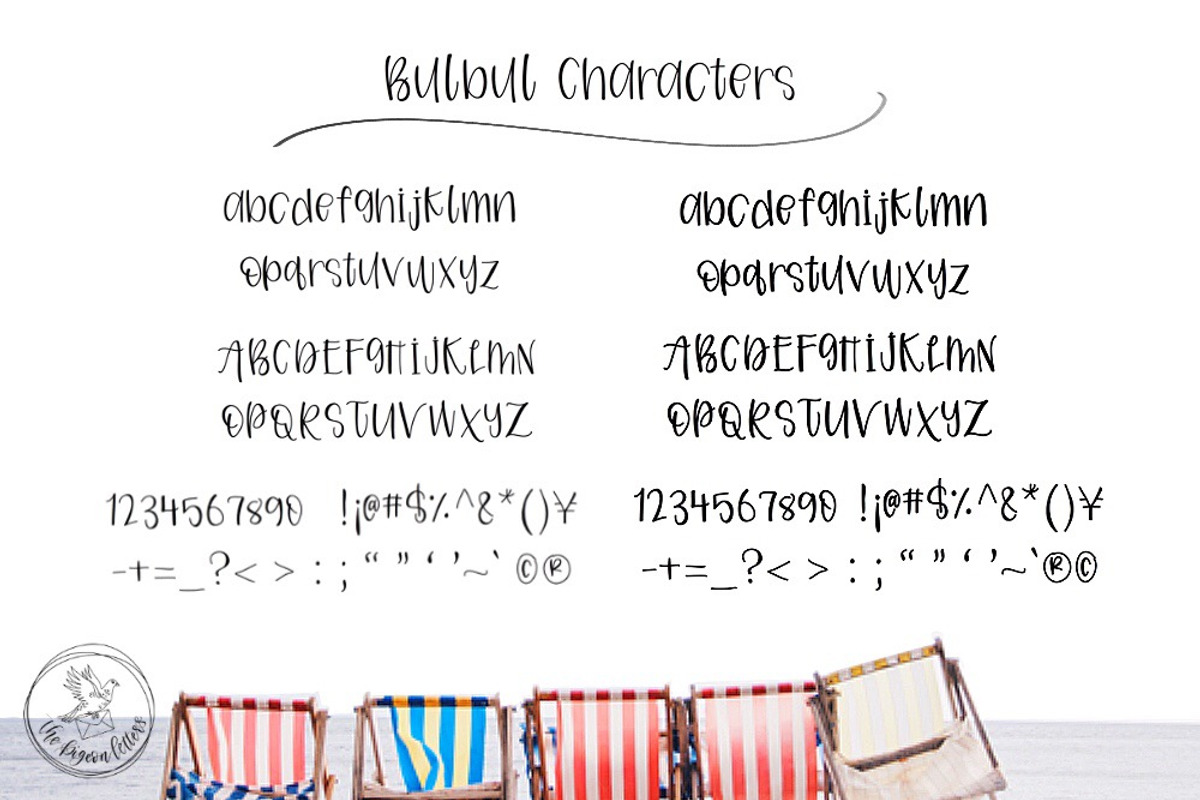
Bulbul | A Modern Handwritten Font
Bulbul | A Modern Handwritten Font by The Pigeon Letters is a font selected for branding, posters, packaging, typography.
- Bulbul Medium
- BulbulHeavy Heavy
Why Bulbul | A Modern Handwritten Font is worth a look
Bulbul | A Modern Handwritten Font by The Pigeon Letters fits naturally into Branding, posters, packaging, typography.